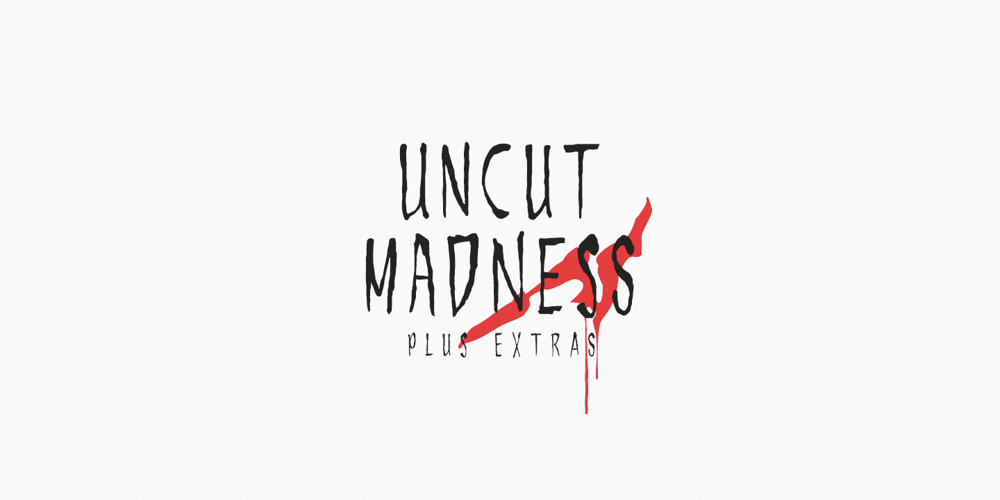
Uncut Madness Font Family was designed by Mirco Zuchowski and published by Mirco Zett. Uncut Madness contains 2 styles and family package options. “Uncut Madness” is a another horror genre font, inspired by vintage movie posters, books and vinyl covers. Including some bloody extras… 😉 Made for logos, headlines, apparel design etc.